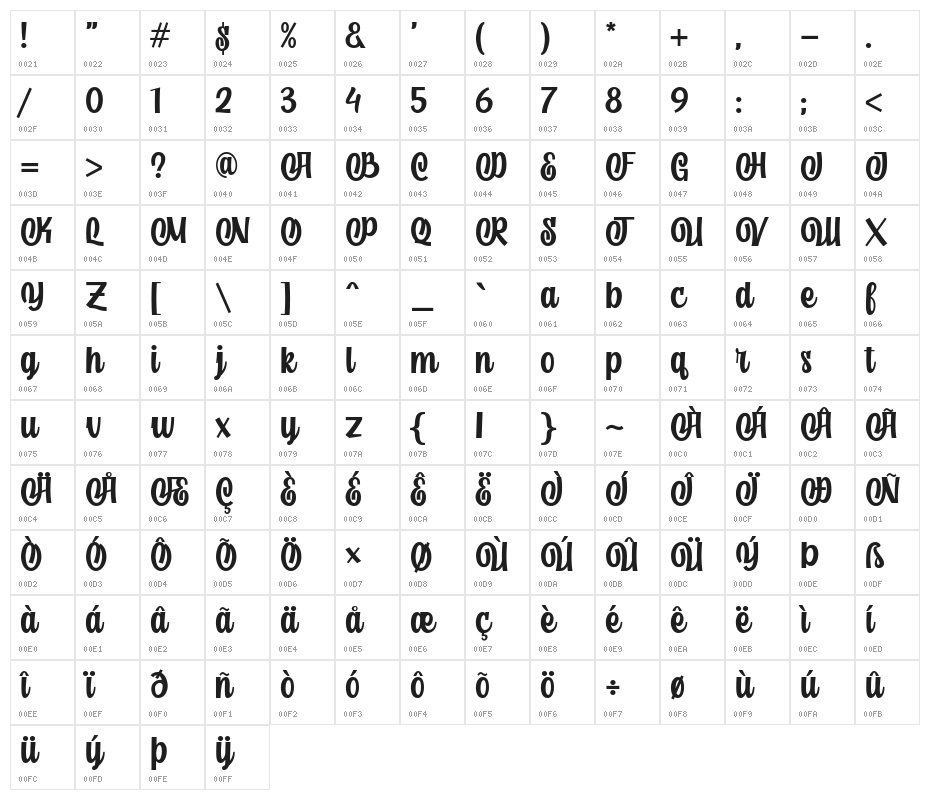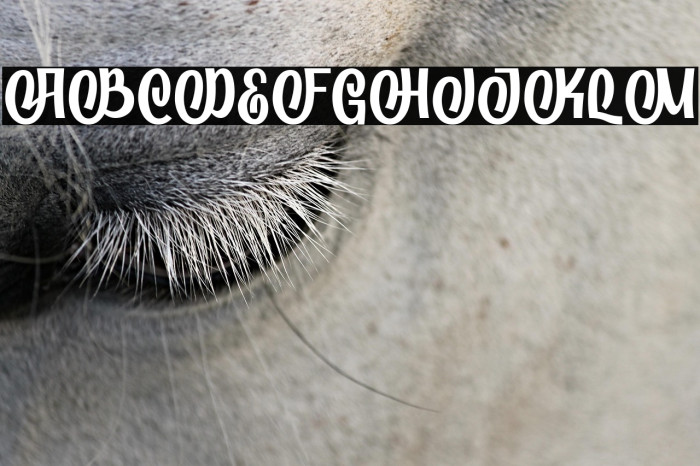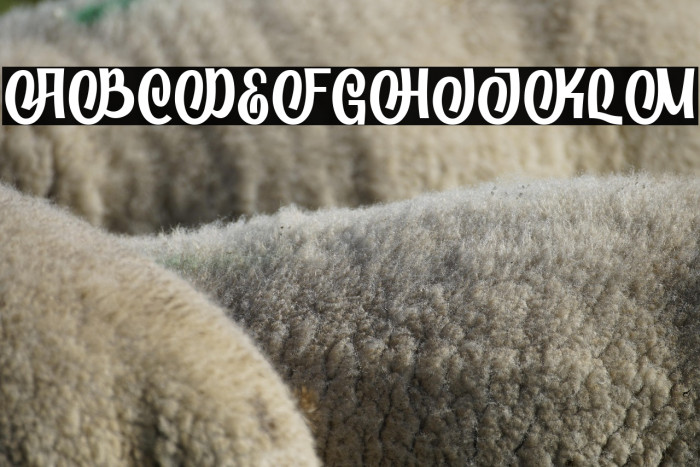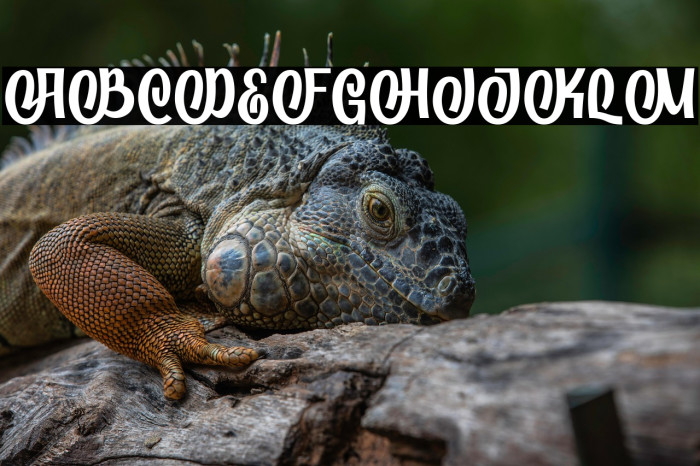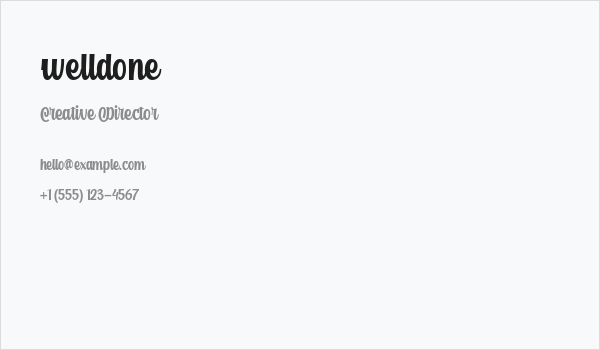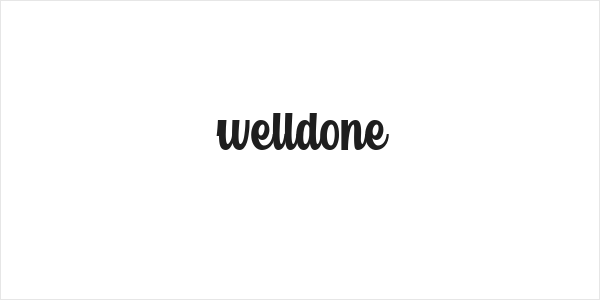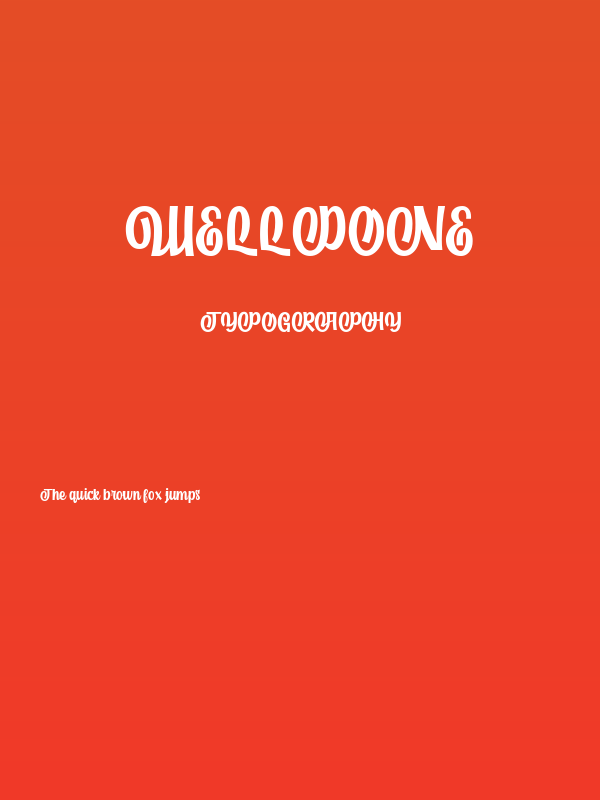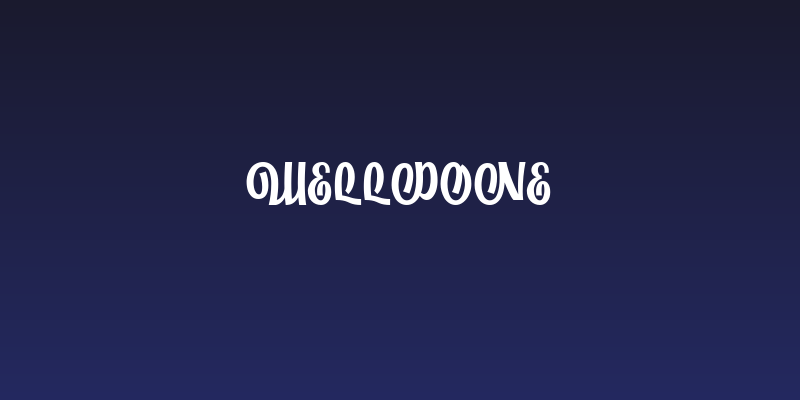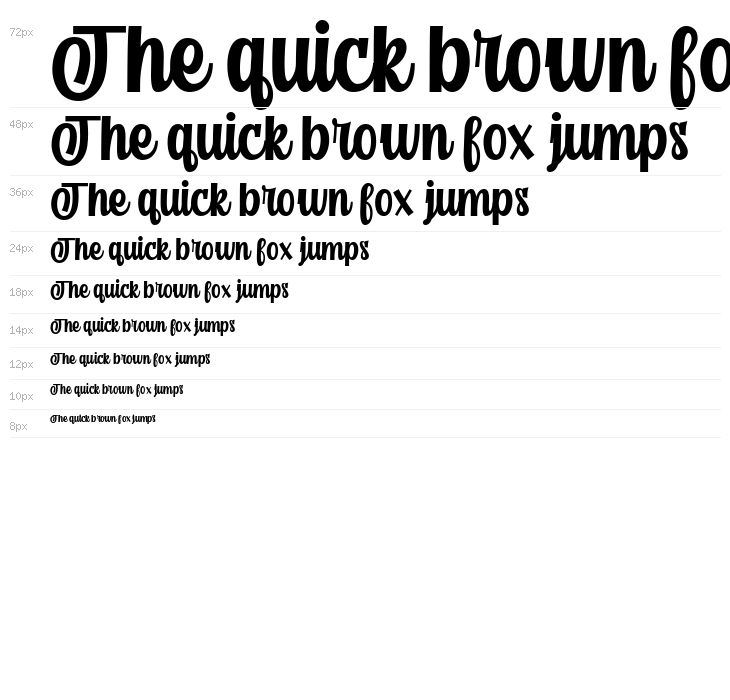
welldone Font
welldone Description
This font features a bold and playful script style with a strong presence. The uppercase letters have a unique, flowing design that combines elements of both cursive and print, creating a dynamic and engaging look. The lowercase letters maintain a consistent, rounded form that complements the uppercase, providing a harmonious balance. The numerals are bold and clear, ensuring readability while maintaining the overall playful aesthetic. Special characters are creatively designed to match the font's lively style, making them suitable for various creative applications.